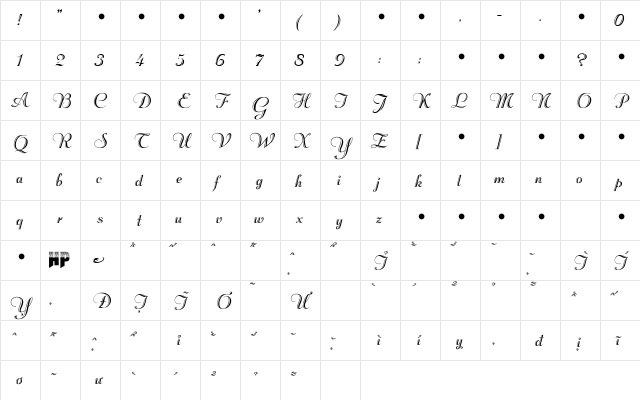
HP-Rechtman Regular Font Preview
HP-Rechtman Regular
Design Context for HP-Rechtman Typeface
HP-Rechtman is a composed and adaptable typeface that performs quietly and consistently across a wide range of design contexts.
Pro Tip: Use HP-Rechtman in both headline and body roles to test its range before committing to a single application.